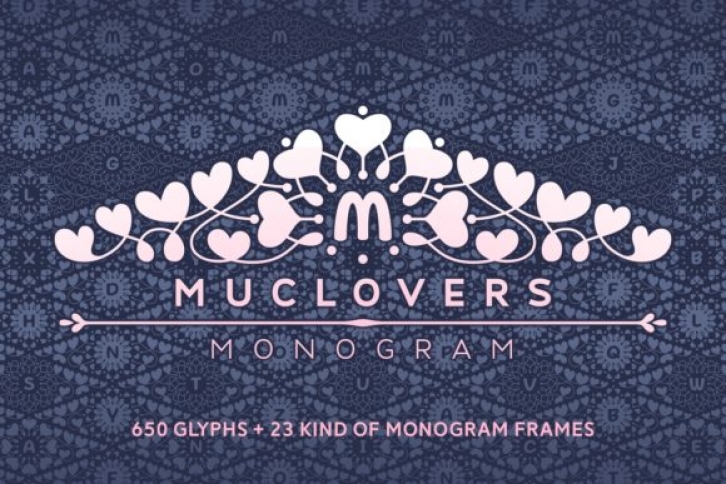
Muclovers is elegant and sweet, but also authentic. This versatile display font has a wide range of applications ranging from greeting cards to Valentine’s crafts, and is guaranteed to add a magical touch to your next design.
This font is PUA encoded which means you can access all of the stunning and fancy glyphs and swashes with ease! It also features a wealth of special features including alternate glyphs and ligatures.